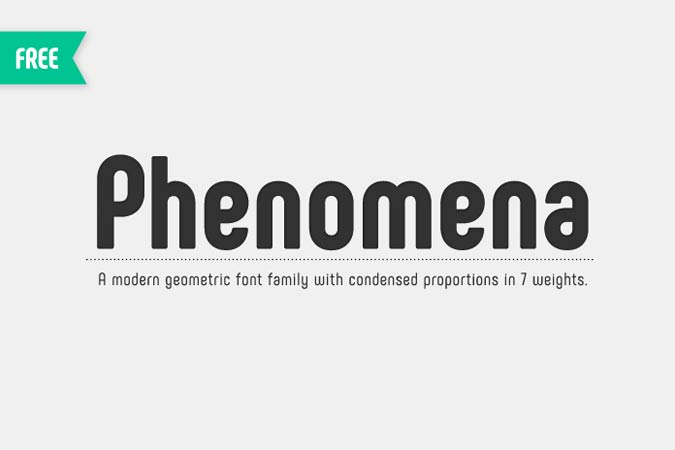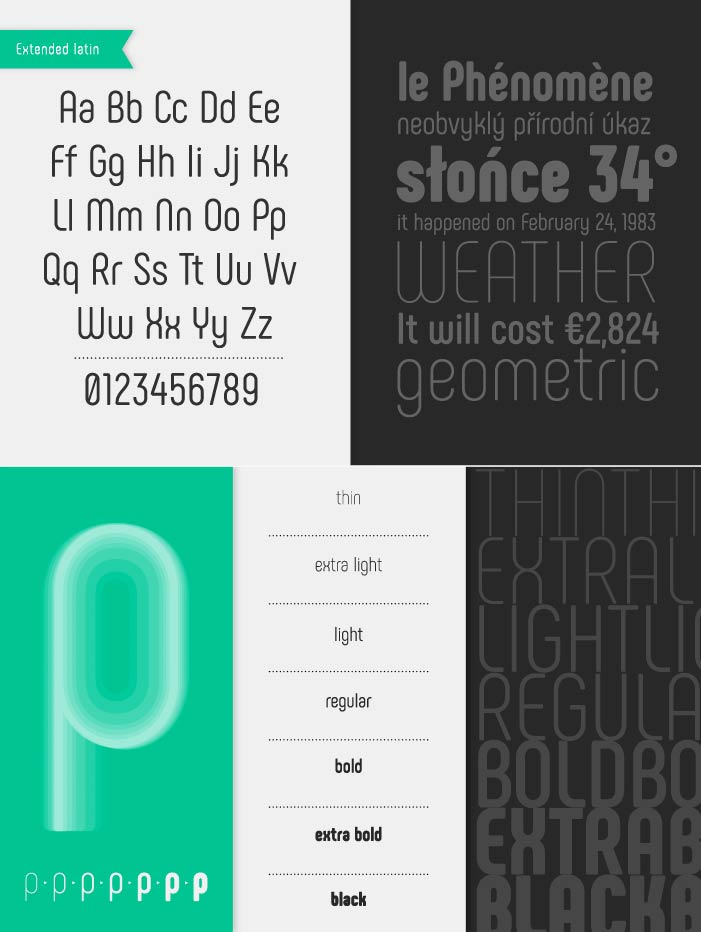
Phenomena is a modern sans serif font based on round geometric shapes that you can download for free. The letters are condensed, it has a slight retro feel to the design, and complemented with rounded finish on the corners. Phenomena comes with a family of 7 weights, from thin to black.
- Designer: Radomir Tinkov and Plamen Motev
- Styles: 7
- Category: Rounded, Sans Serif